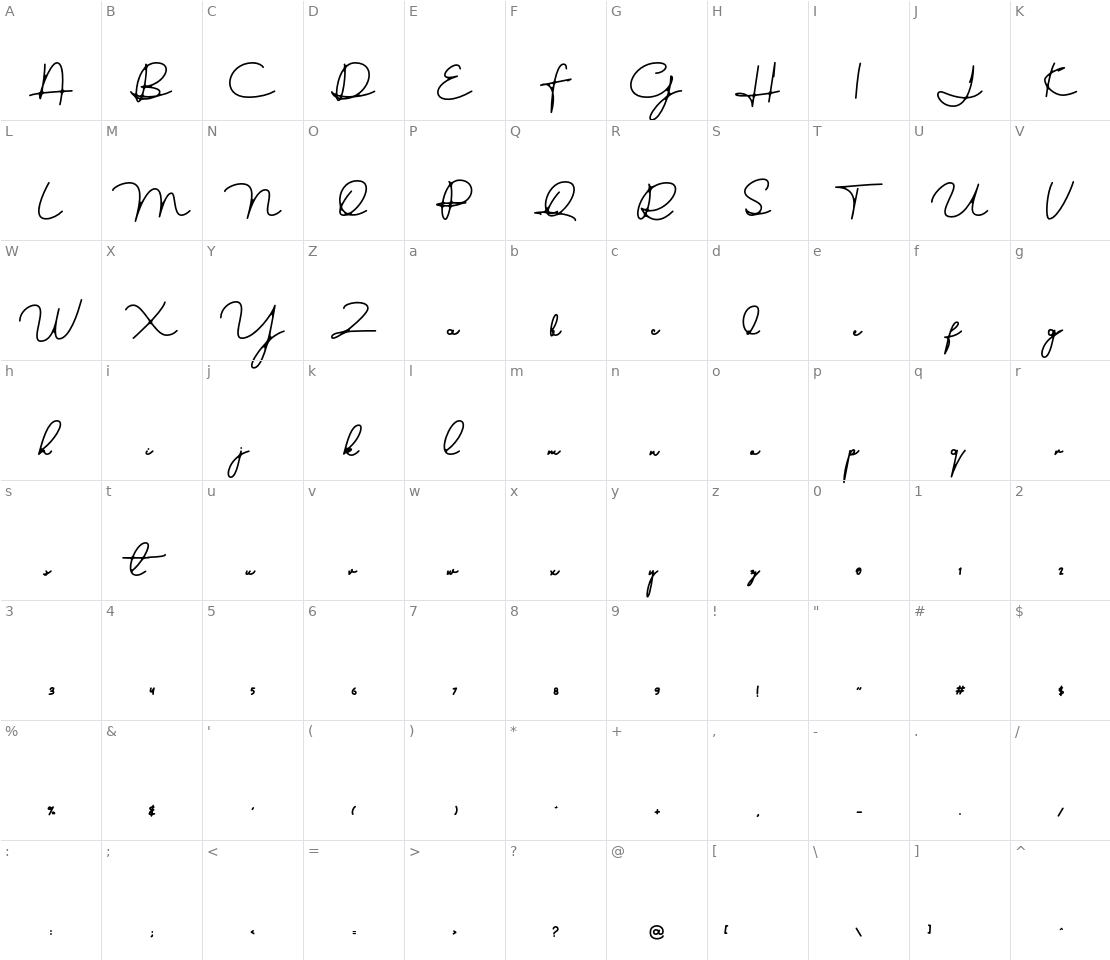
Austin Signs
Austin Signs is a thin, flowing cursive face with the look of someone's actual signature, loose and personal but still legible. The lightweight strokes keep it feeling elegant and minimal, closer to a penned autograph than decorative calligraphy. A natural pick for personal branding, stationery, and anywhere a quiet, human touch matters more than polish.